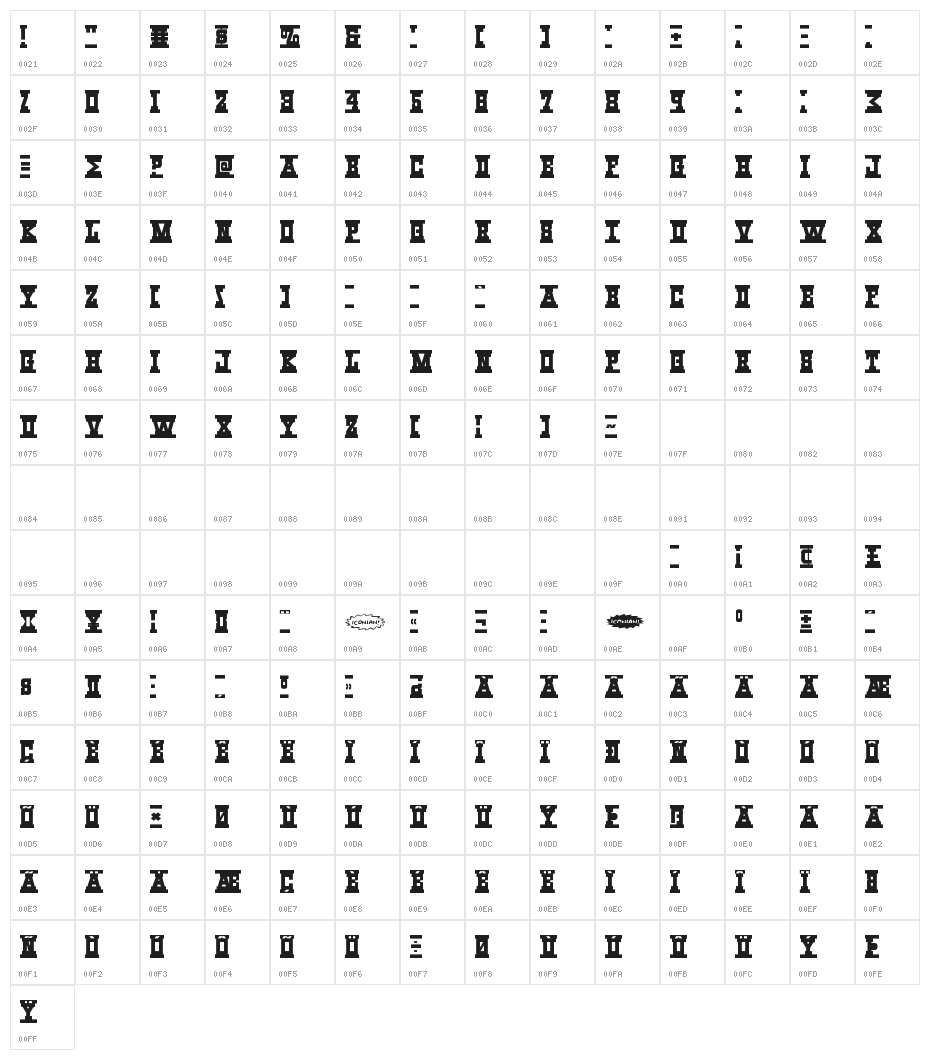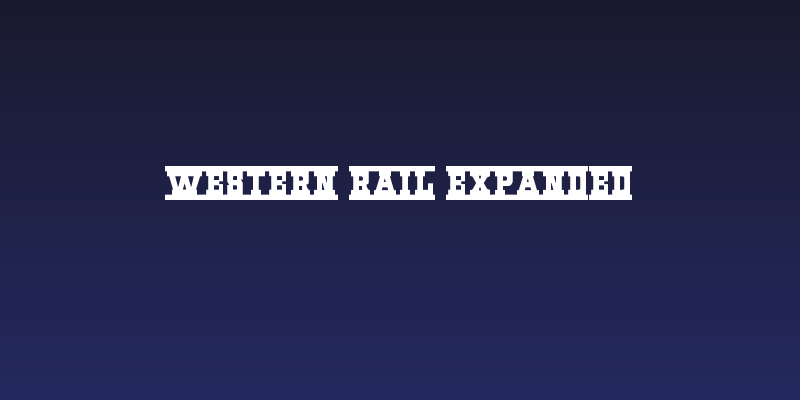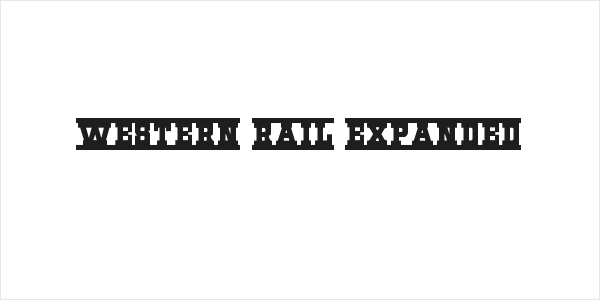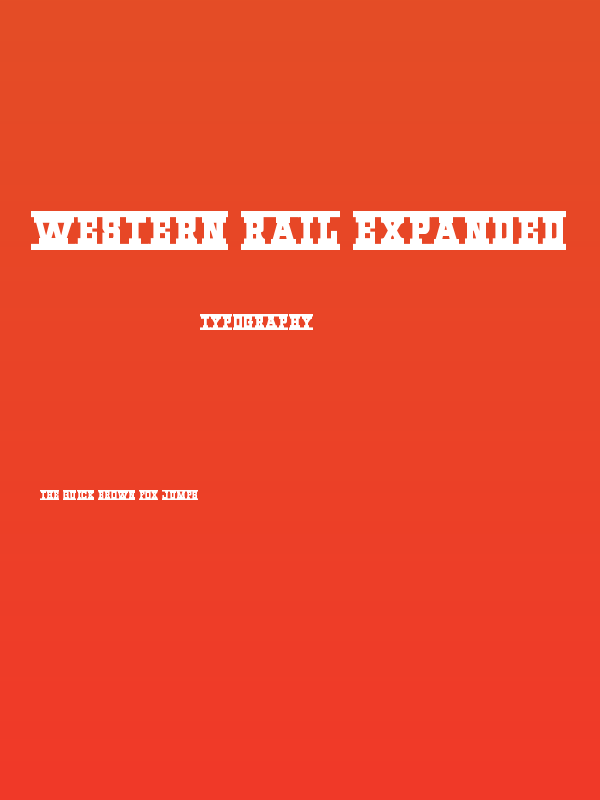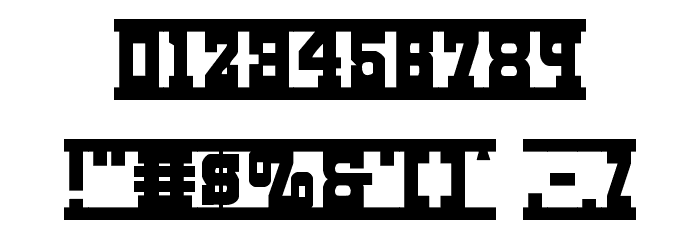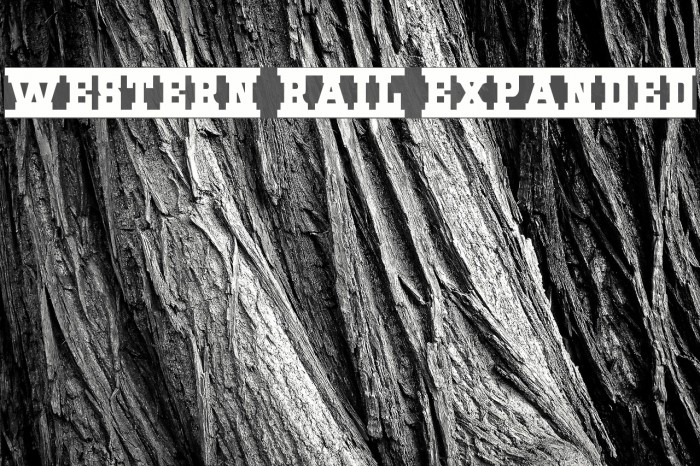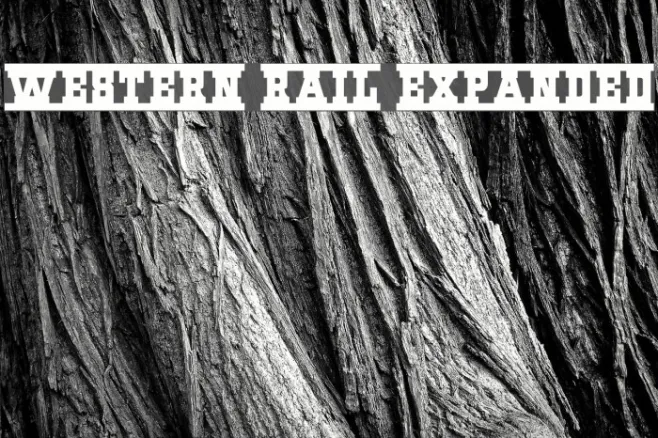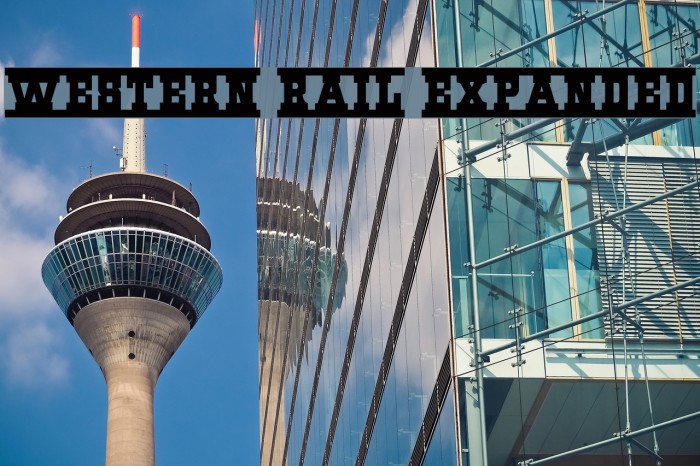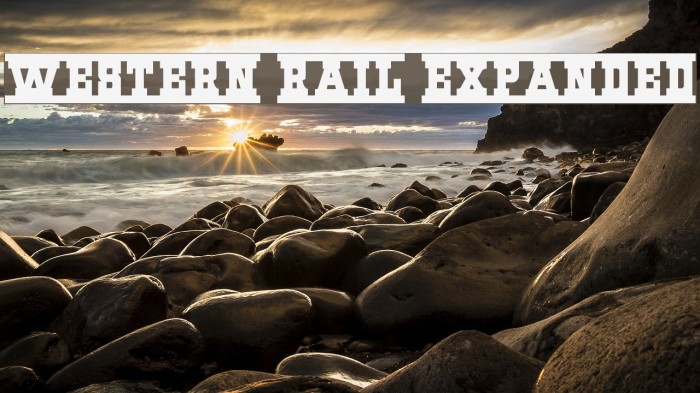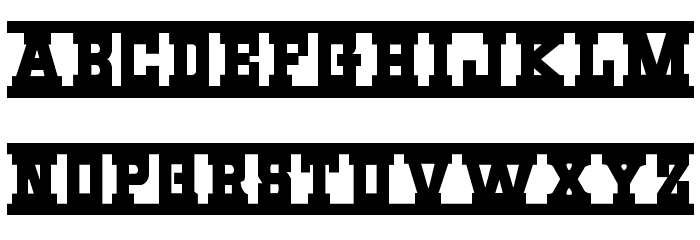
Western Rail Expanded Font
Western Rail Expanded Description
This font exudes a bold, rugged charm reminiscent of the Old West. Its thick, blocky letters are designed with a distinct, expanded width, giving it a commanding presence. The characters feature sharp angles and pronounced serifs, evoking a sense of strength and durability. The uppercase letters are particularly striking, with their wide stance and solid construction. The numbers and special characters maintain the same robust style, ensuring consistency across all text elements. This font's unique style makes it ideal for projects that require a touch of vintage Americana or a bold, impactful statement.